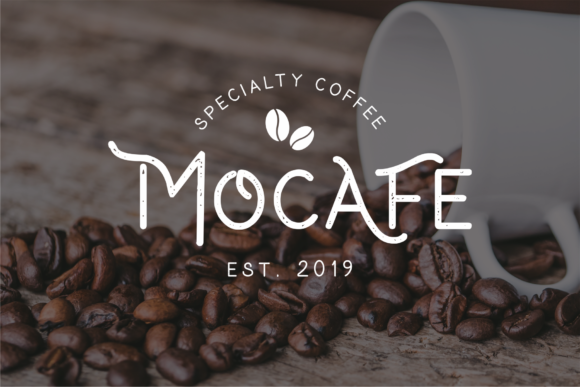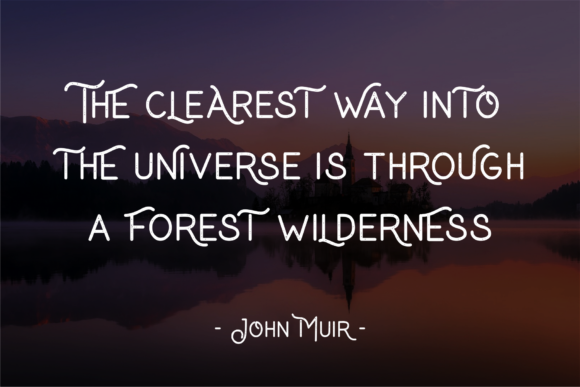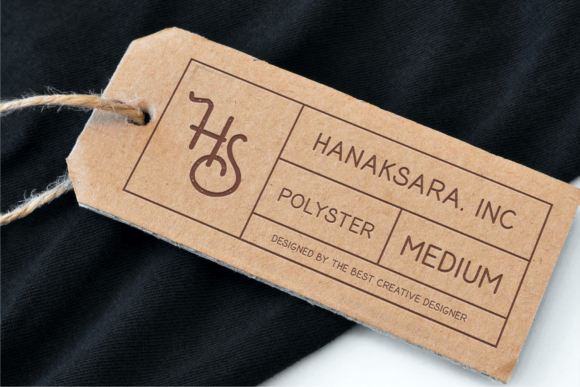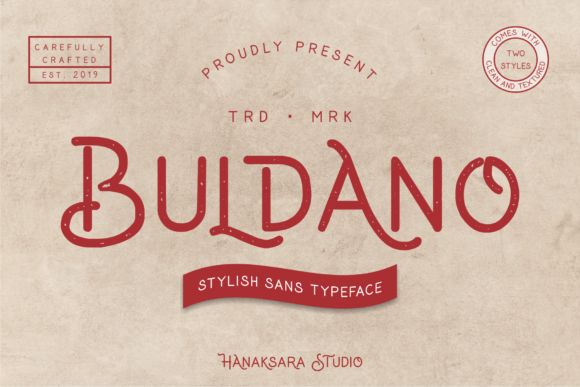
The Designer’s Delight: Uncovering the Beauty of Buldano Font
I’ll never forget the moment I stumbled upon Buldano Font while working on a wedding invitation project for a close friend. I had tried countless fonts, but none seemed to capture the perfect blend of elegance and playfulness. That was until I laid eyes on Buldano – its sleek lines, modern aesthetic, and versatility instantly won me over. In this article, I’ll share my journey with Buldano, its features, and how to make the most of this stunning sans serif font.
- 💯 Clean and modern design: Buldano’s sleek lines and curves make it perfect for a wide range of design projects.
- ✅ Highly versatile: From branding and headings to wedding designs, invitations, and logos, Buldano adapts seamlessly.
- 🌈 Excellent for digital and print: This font shines in both digital and print formats, ensuring consistency across various platforms.
The Not-So-Perfect: 🤔
- ⚠️ Limited language support: Buldano might not support all languages, so be sure to check the character set before using it for a specific project.
- 😐 Some users may find it too similar to other sans serif fonts: If you’re looking for a truly unique font, you might want to explore other options.
The Story Behind Buldano: Designer Inspiration
Buldano’s story begins with a passion for clean, modern design. Its creator, a talented type designer, aimed to craft a font that would excel in various applications, from digital screens to print materials. Inspired by the urban landscape and contemporary art, Buldano was born – a versatile, stylish sans serif font designed to elevate design projects to new heights.
Q: What type of projects is Buldano best suited for?
A: Buldano is an excellent choice for a wide range of design projects, including branding, headings, wedding designs, invitations, signatures, logos, labels, and more.
Q: Is Buldano a script font?
A: No, Buldano is a sans serif font, characterized by its clean lines and modern aesthetic.